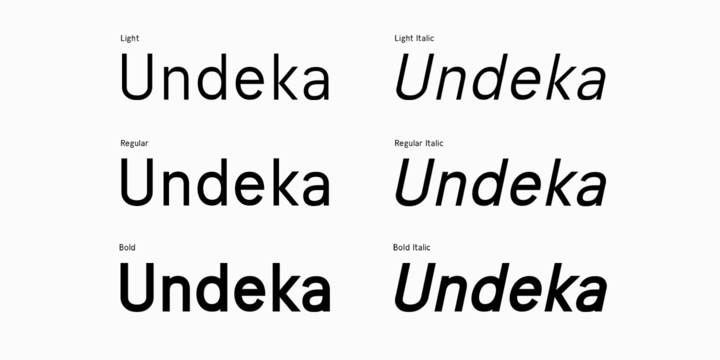
Undeka Font
Vector Font is perfect for logo design, branding projects, digital art, web design, print materials, packaging design, poster creation, book covers, magazine layouts, and modern advertising campaigns. This versatile typeface excels in both digital and print media applications.
Vector Font is exciting because it combines geometric precision with contemporary aesthetics, offering clean lines and perfect scalability that maintains crisp edges at any size. Its mathematical construction ensures consistent spacing and alignment, making it ideal for professional design work that demands technical accuracy and visual appeal.
The Vector Font family includes regular, bold, light, italic, condensed, extended, and display variants, providing designers with comprehensive typographic options for various design scenarios and hierarchical text arrangements.
Vector Font represents the perfect fusion of technical precision and artistic expression. This modern typeface draws inspiration from vector graphics and geometric design principles, creating letterforms that are both mathematically sound and visually striking. The font's clean, minimalist approach makes it an excellent choice for contemporary brands seeking a sophisticated yet approachable visual identity.
The geometric construction of Vector Font ensures excellent readability across all sizes, from small body text to large display headlines. Its balanced proportions and carefully crafted spacing create harmonious text blocks that enhance user experience in both digital interfaces and printed materials. The font's neutral yet distinctive character makes it suitable for a wide range of industries, from technology and finance to fashion and creative services.
Whether you're designing a corporate identity, developing a mobile application, or creating editorial layouts, Vector Font provides the typographic foundation for professional, polished results that stand out in today's competitive visual landscape.